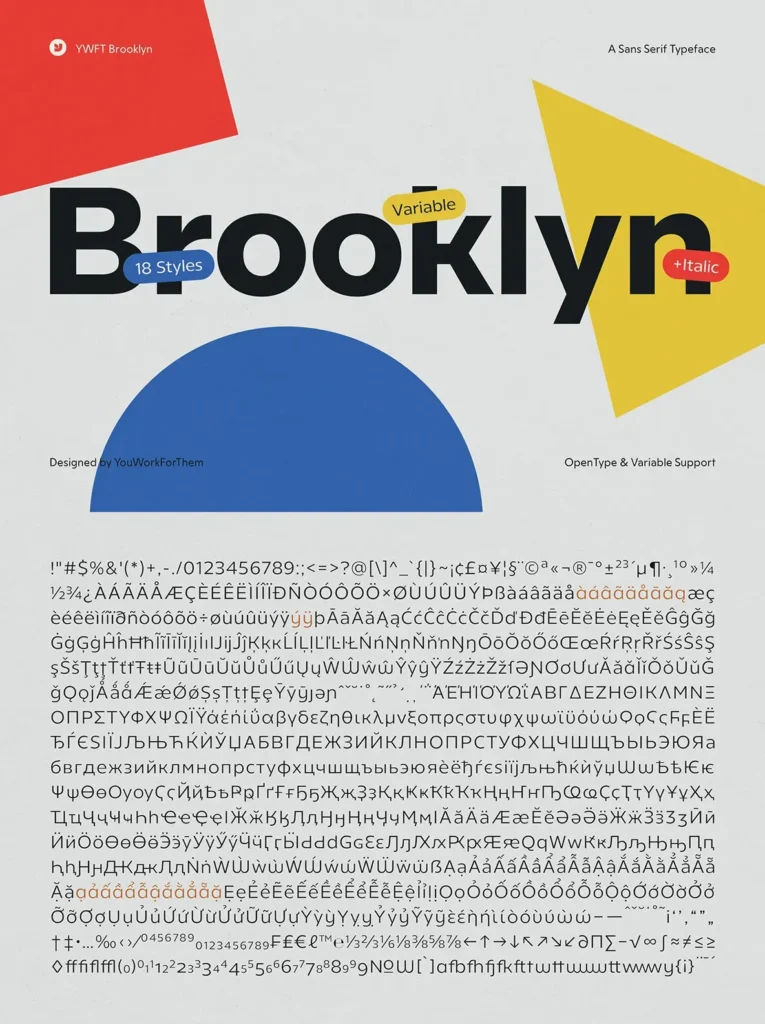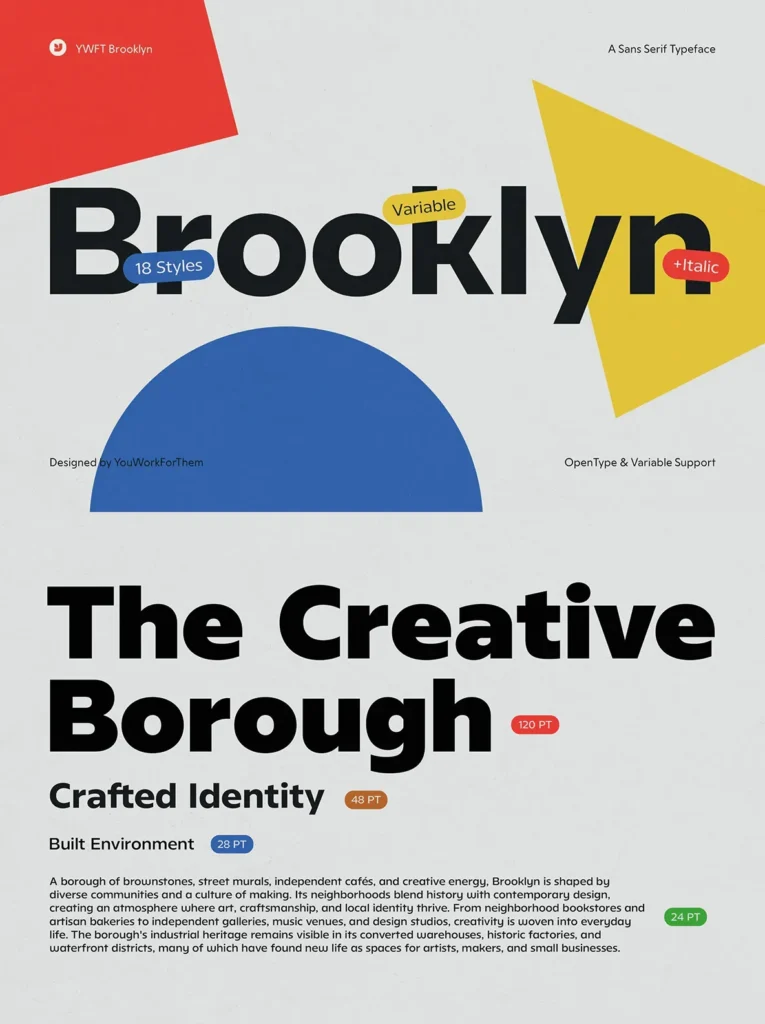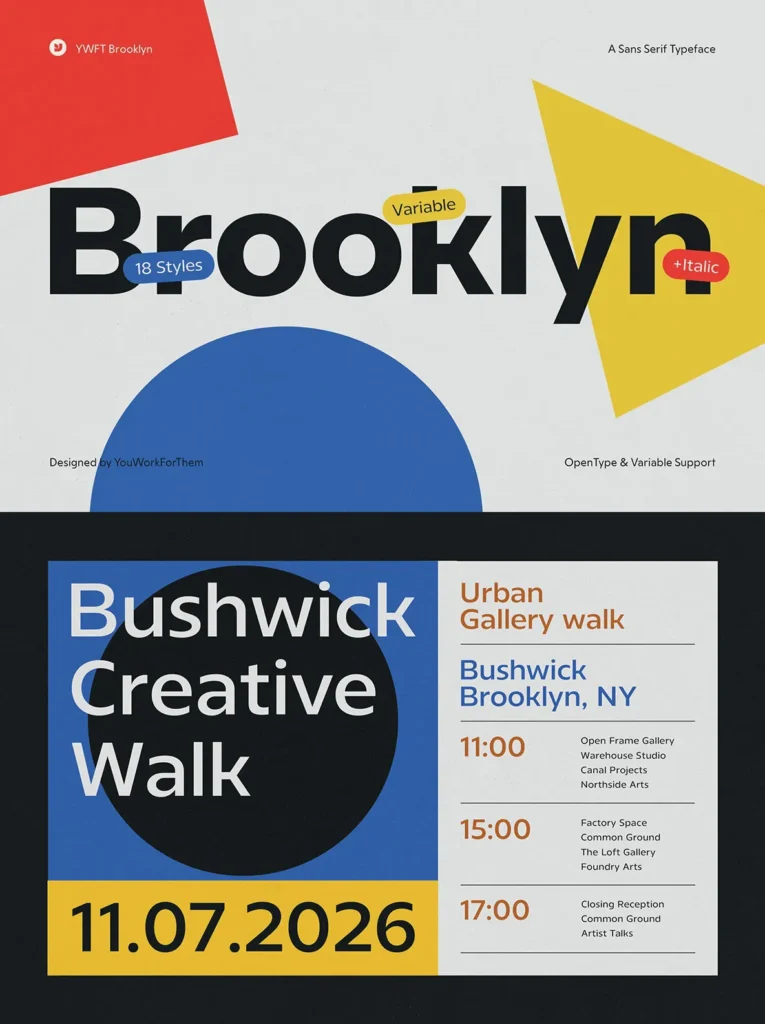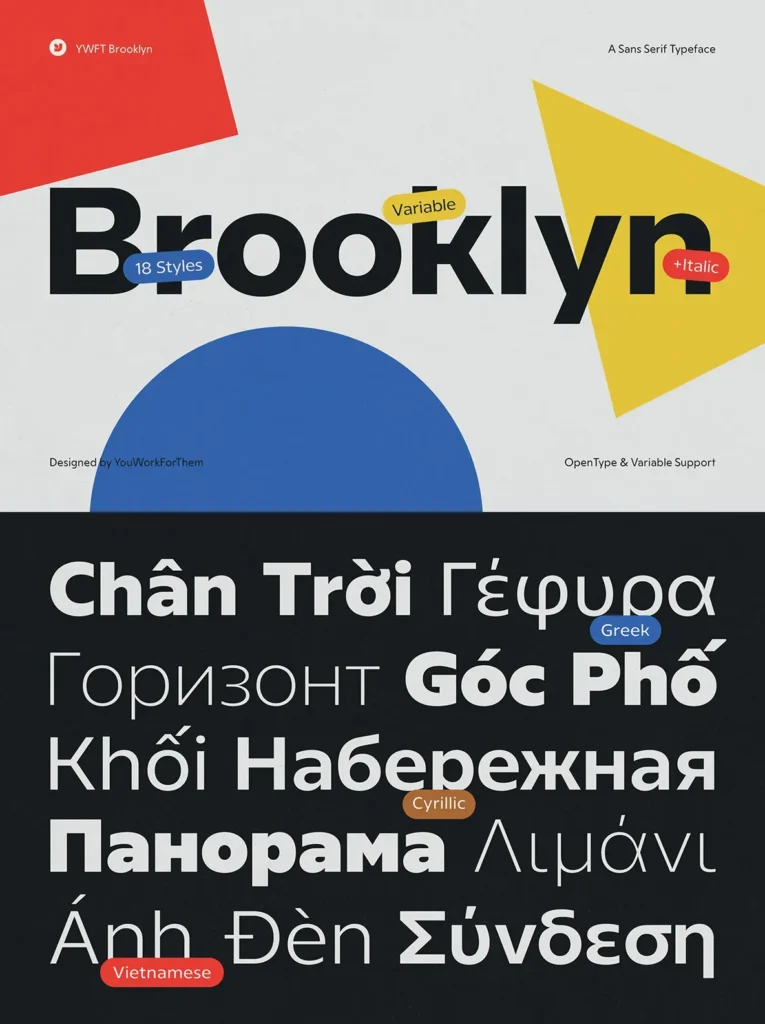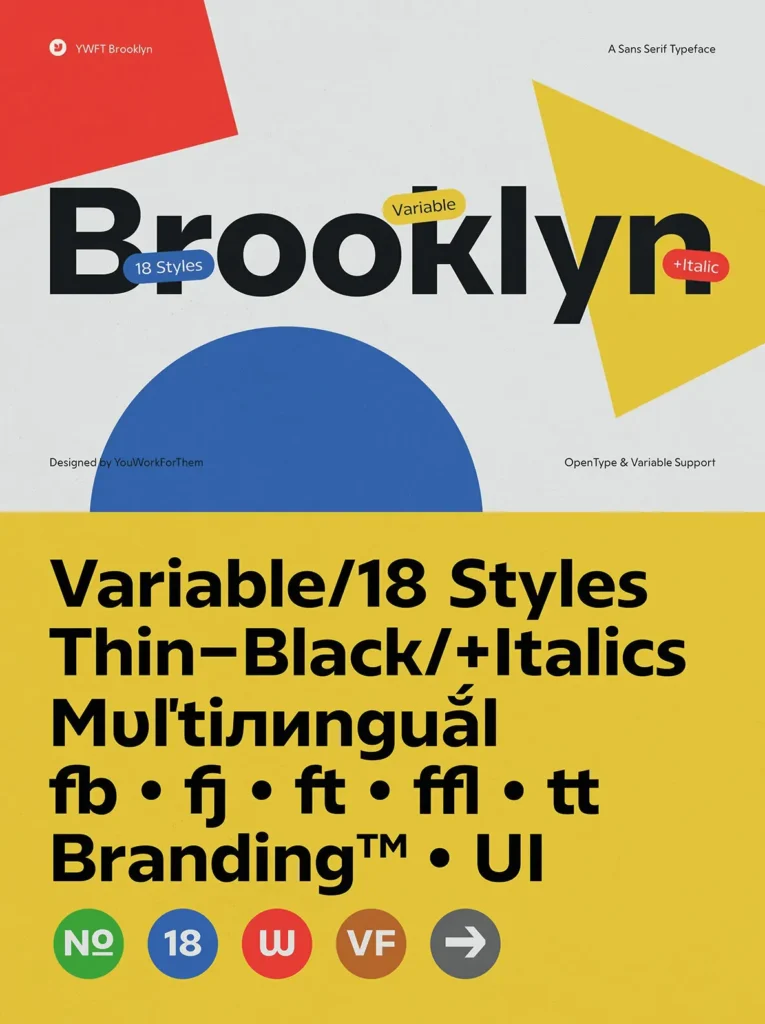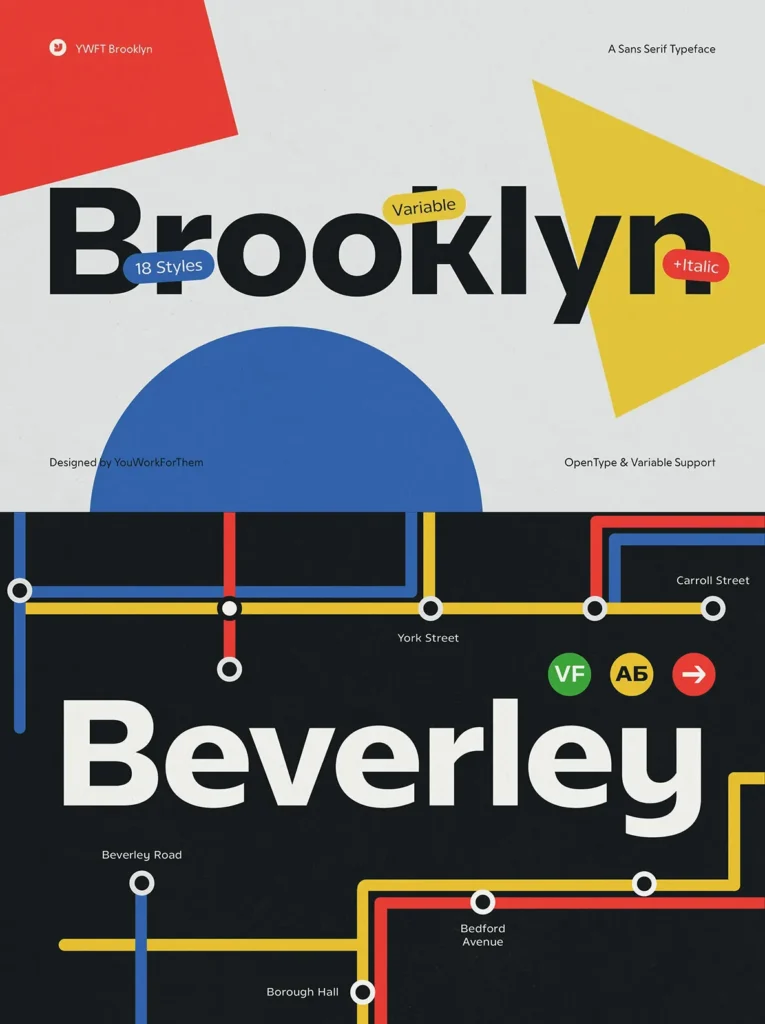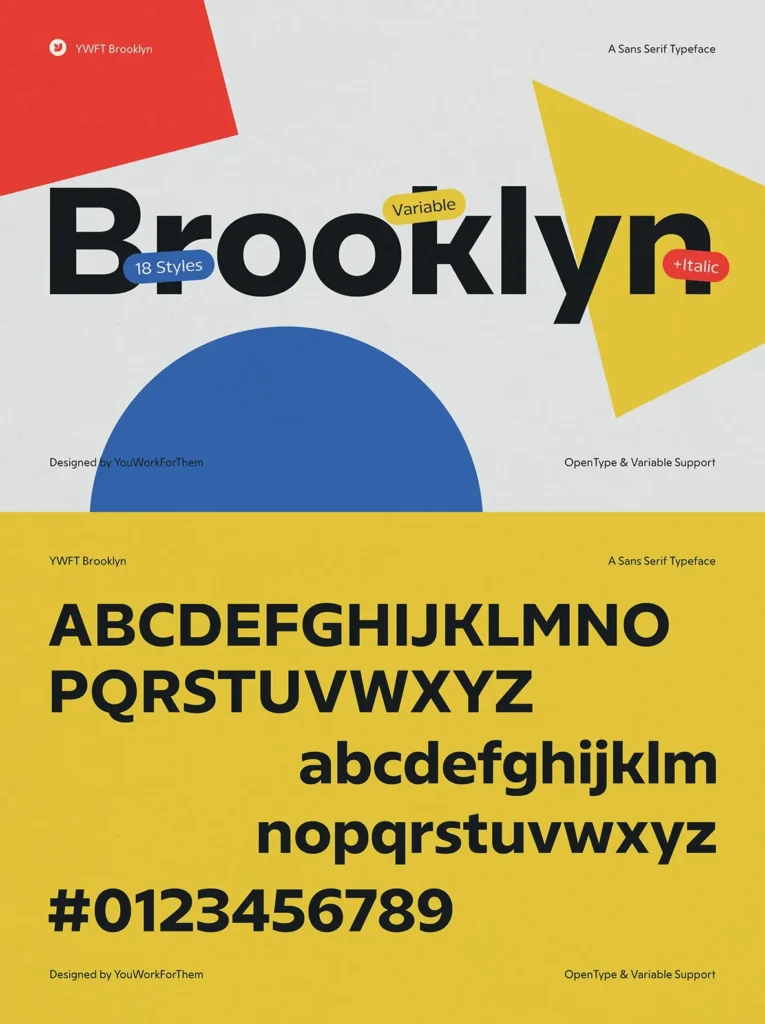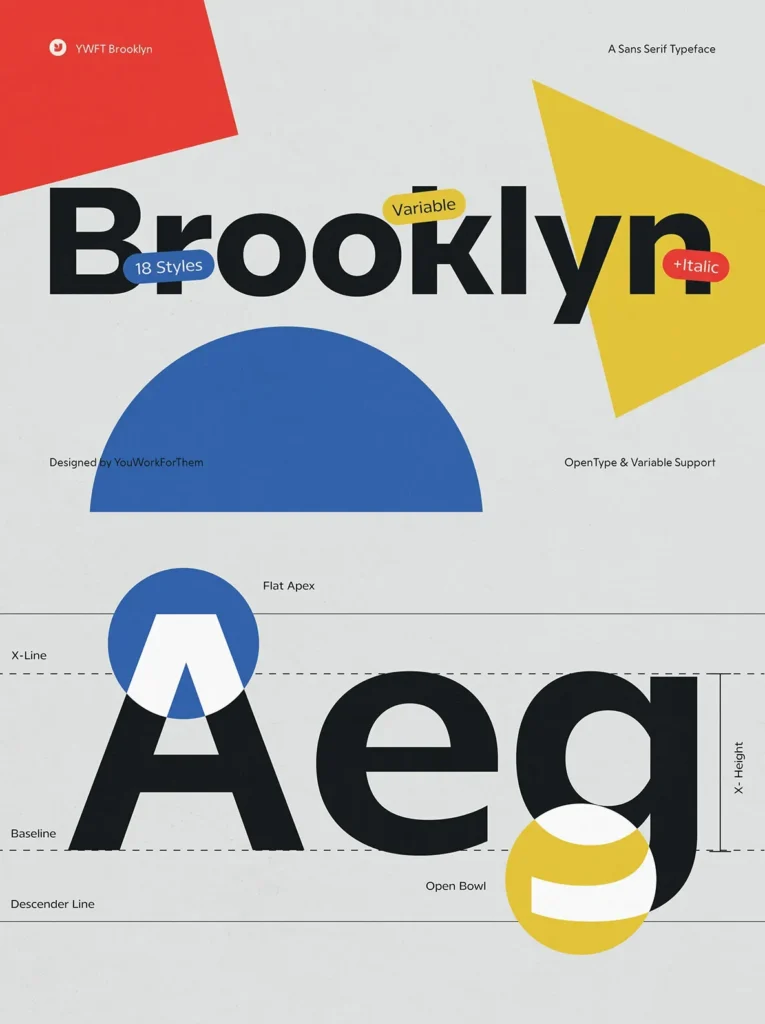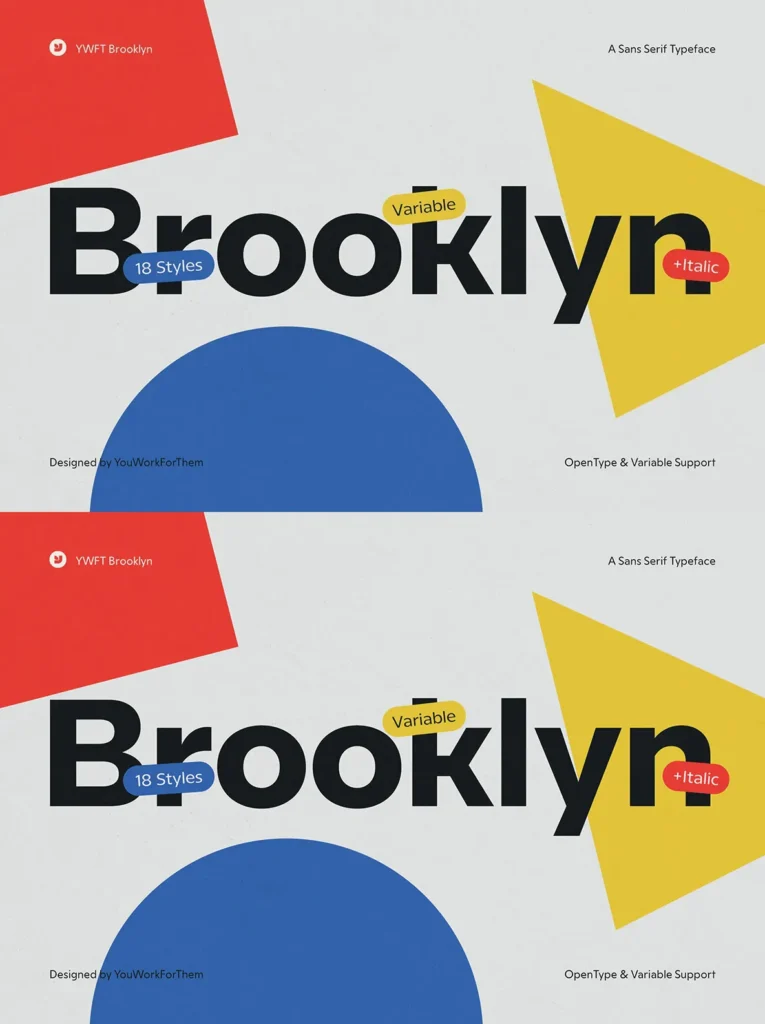
YWFT Brooklyn — A Workhorse Sans-Serif Family Built For Everyone
YWFT Brooklyn is a full-range sans-serif type family built for everyday professional use. It spans 18 styles: nine weights from Thin through Black, each with a matching italic, plus a variable font that covers the full weight range in a single file. Designed and released exclusively by YouWorkForThem, the family uses soft rounded terminals, generous apertures, and consistent optical balance across all weights. It reads clearly at caption sizes and holds its presence at billboard scale.
YWFT Brooklyn suits brand identity systems, editorial and magazine design, app and web UI, annual reports, fashion lookbooks, packaging, and projects where one reliable sans-serif must carry both headline and body copy responsibilities. Its weight range gives enough tonal variety for fashion, tech, consumer, and institutional contexts without requiring a secondary typeface for most applications. The variable font also makes it practical for responsive web design, motion graphics, and digital products where precise weight interpolation matters.
Language Support
Basic Latin
Western European
Vietnamese
Greek
Cyrillic
OpenType Features
Alternates
Case Sensitive Forms
Denominator
Discretionary Ligatures
Fractions
Historical Forms
Lining Figures
Localized Forms
Numerator
Oldstyle Figures
Ordinals
Required Ligatures
Scientific Inferiors
Standard Ligatures
Stylistic Alternates
Stylistic Set 01
Subscript
Superscript
Styles
Thin
Light
Regular
Medium
SemiBold
Bold
ExtraBold
Black
Variable
Matching italics all weights, variable controls